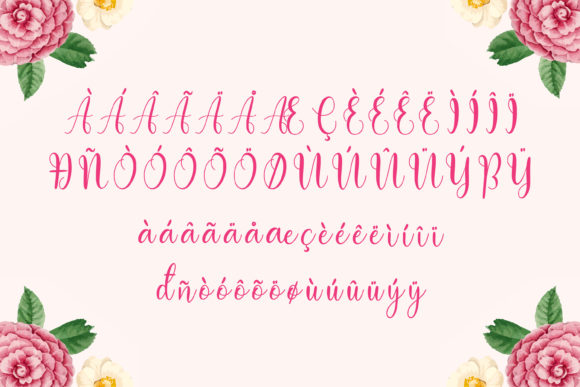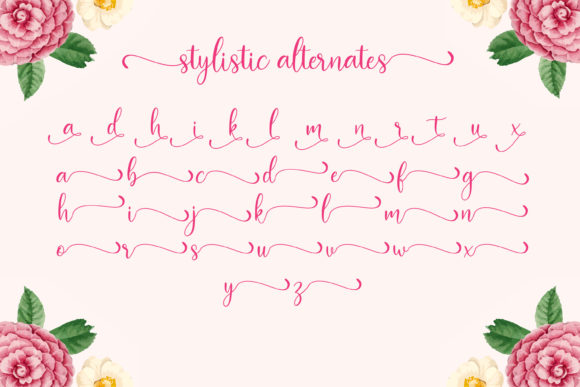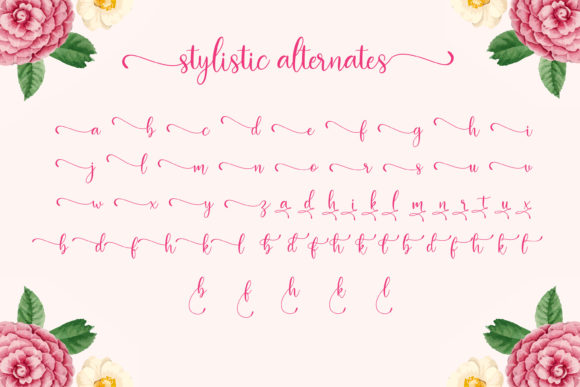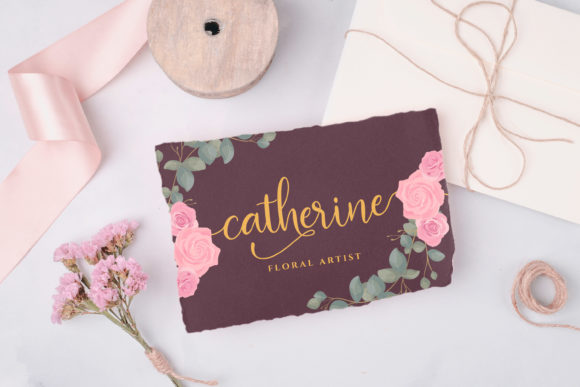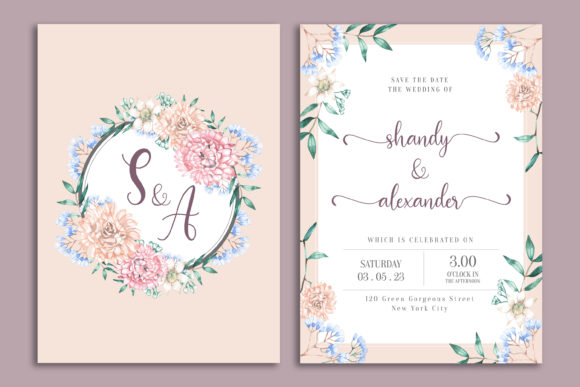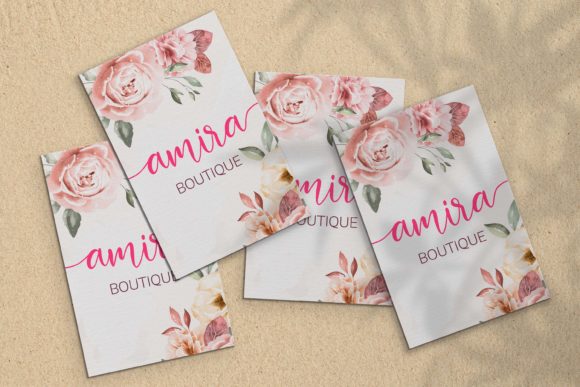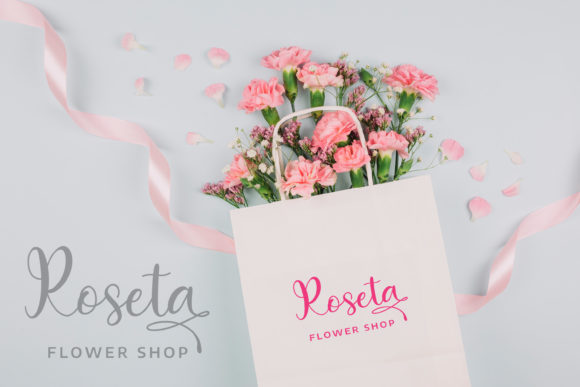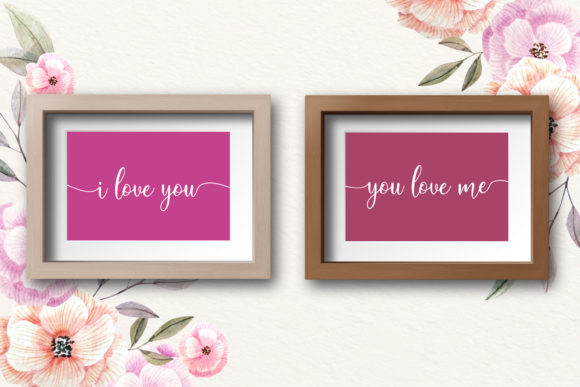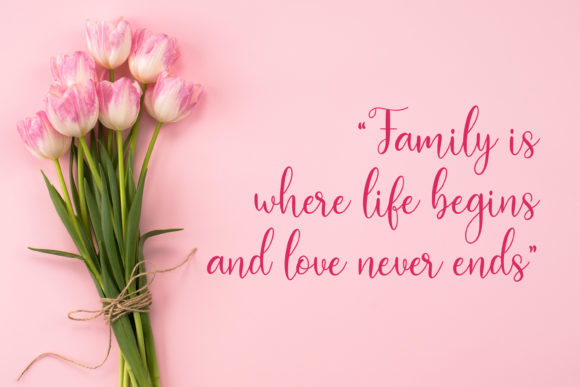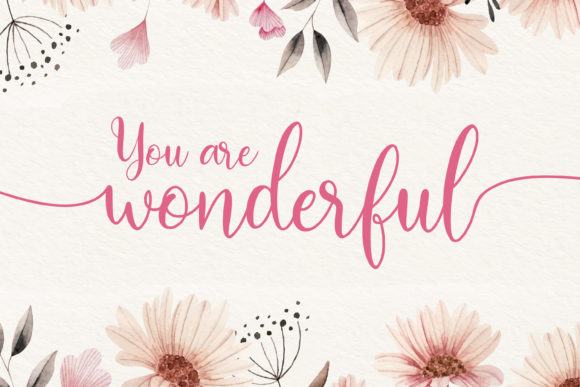
Bolyvina Font
About Bolyvina Font
Bolyvina is a beautiful script that feels classy, elegant, and modern. It is perfectly suited for a wide variety of projects!
This font is PUA encoded which means you can access all of the magical glyphs and swashes with ease! It also features a wealth of special features including alternate glyphs and ligatures.